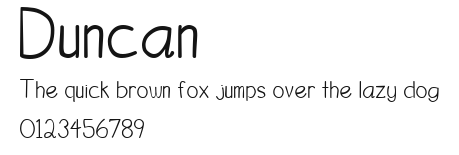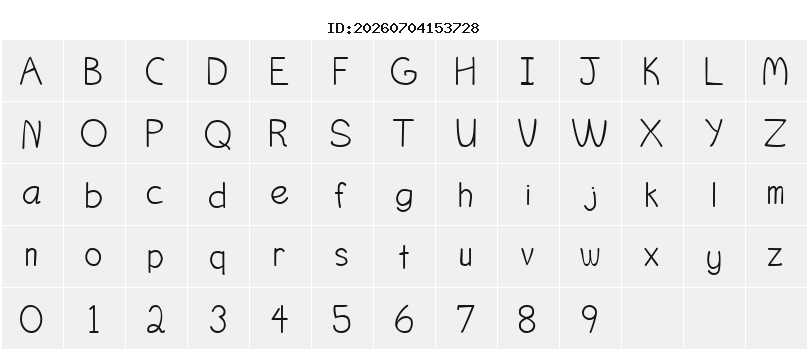
• Font Name: Duncan
• Full Font Name: Duncan Regular
About Duncan.ttf
Duncan.ttf is a modern, elegant sans-serif font designed for ultimate readability and visual harmony. Perfect for branding, headlines, web design, and print materials.